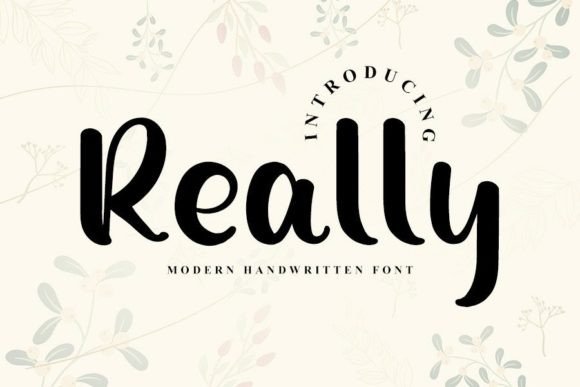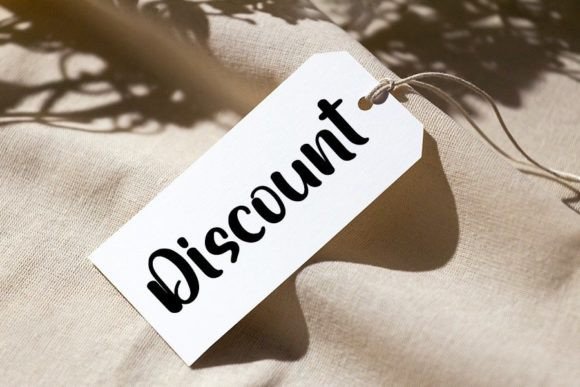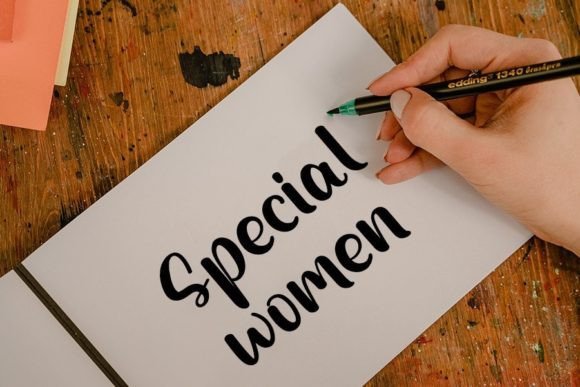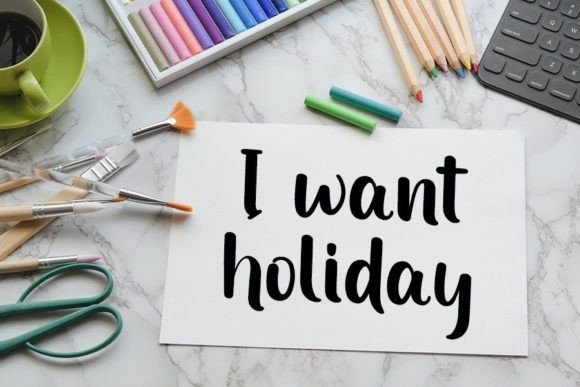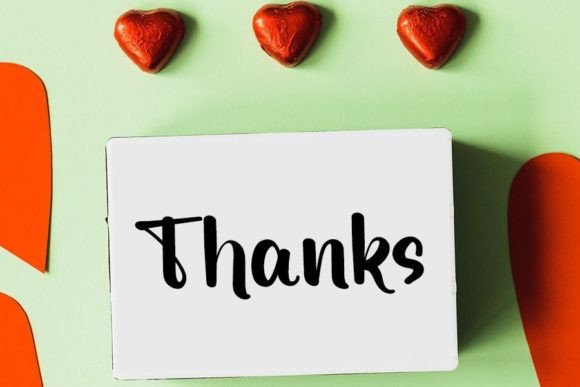
Really Font
About Really Font
Introducing Really, a meticulously crafted and stunning handwritten font characterized by its neatness and beautiful elegance. This font is not just a typeface; it’s a design asset that seamlessly blends an organized structure with an enchanting handwritten touch. Perfect for a myriad of projects, Really invites you to discover its distinct and timeless style, allowing you to infuse your creations with a touch of magic and create designs that are nothing short of spectacular!
Really stands out with its neat and polished appearance, enhancing readability while preserving an artistic charm. The handwritten elements bring a personal and human quality to the font, making it particularly appealing for projects that seek a balance between precision and warmth.
Fall in love with Really’s unique character, as it effortlessly combines distinctiveness with a timeless aesthetic. This font is designed to withstand the test of trends, becoming a reliable choice for those who appreciate both sophistication and versatility. Whether employed in invitations, branding, promotional materials, or any creative venture, Really promises to elevate your designs with an air of grace and beauty.
The versatility of Really shines through its adaptability to various design contexts. It seamlessly integrates into diverse themes, from casual and friendly to formal and elegant, making it a versatile tool in your design arsenal.
Imagine Really gracing the invitations for a special event, where its elegant touch sets the perfect tone. In branding, it can convey a sense of approachability and style, creating a connection with your audience. The font’s neat structure ensures clarity, making it suitable for a range of applications, from print materials to digital designs.
Really is more than a font; it’s an opportunity to bring a touch of elegance and individuality to your projects. Its distinct and timeless style invites you to explore new creative avenues, letting your designs stand out with a unique and captivating appeal. Fall in love with Really, and let it be the key to creating spectacular designs that leave a lasting impression.